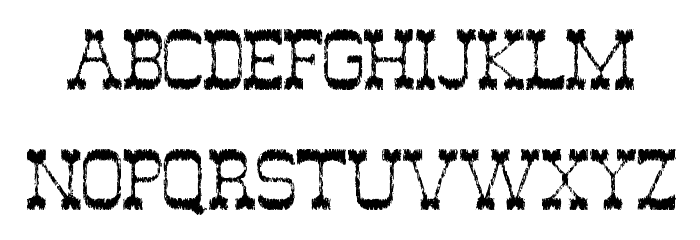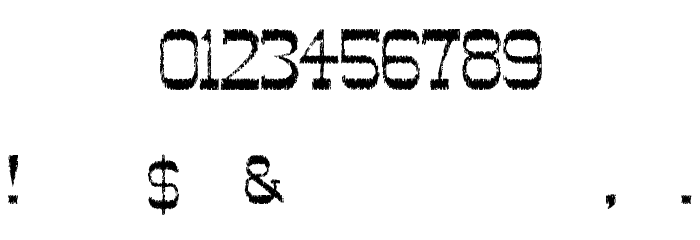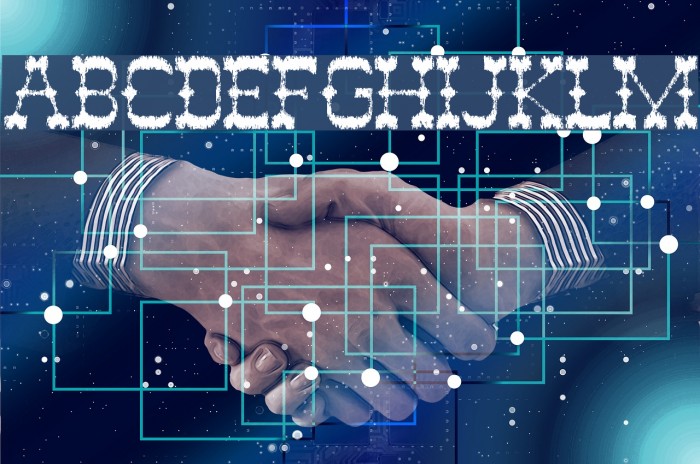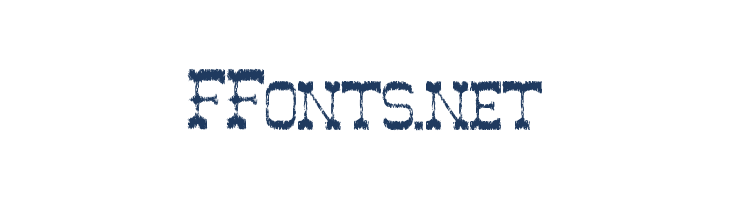
Ghost Of The Wild West Font
This font features a rugged, textured design reminiscent of the Wild West. Each character is adorned with a distressed, worn-out appearance, giving it a unique, vintage feel. The uppercase and lowercase letters maintain a consistent style, with jagged edges and a bold presence. Numbers and special characters follow the same aesthetic, ensuring a cohesive look across all text. The font's distinctive style makes it ideal for projects that require a touch of nostalgia or a Western theme. Its bold and decorative nature captures attention and adds character to any design.
A rugged, textured font with a vintage Wild West aesthetic.
- Proposed Projects: Perfect for Western-themed posters, vintage advertisements, themed event invitations, and rustic branding projects.
- Overall Style: Vintage